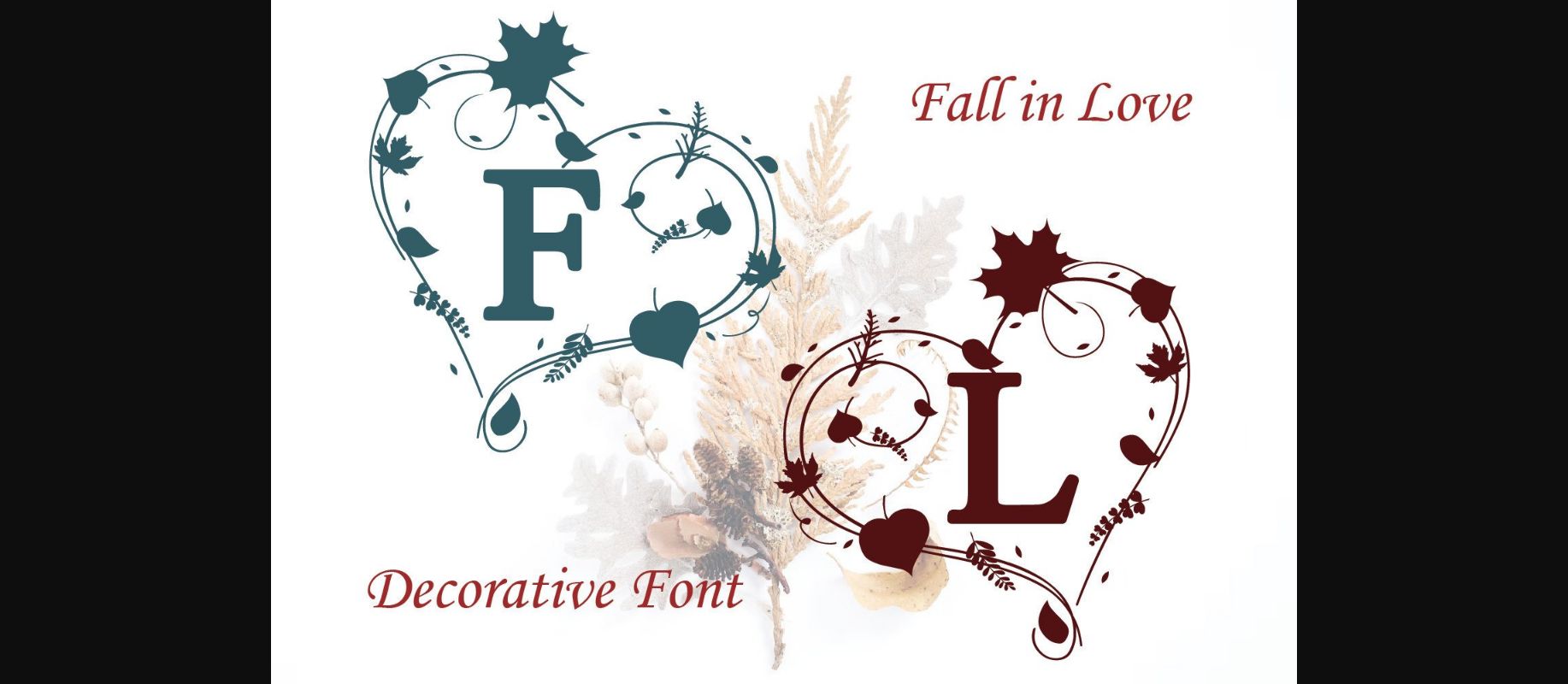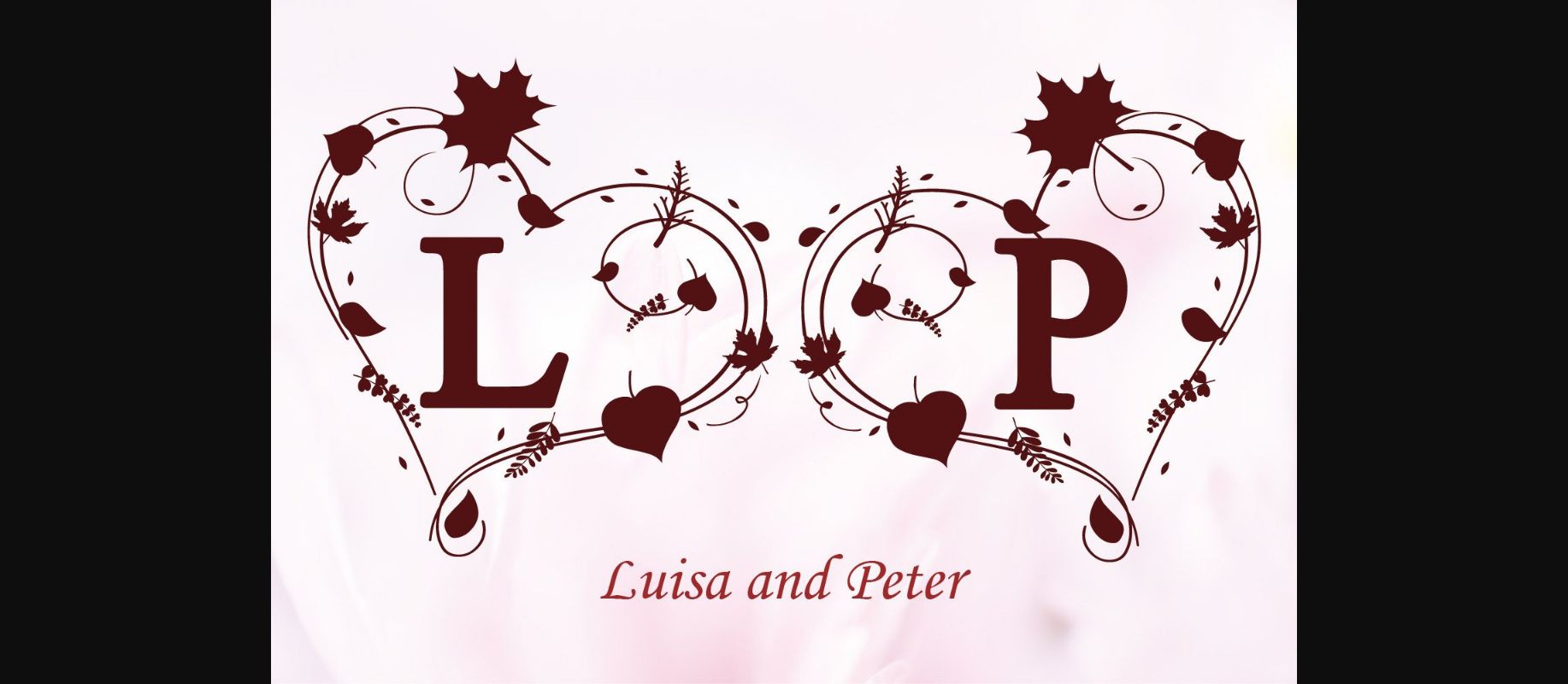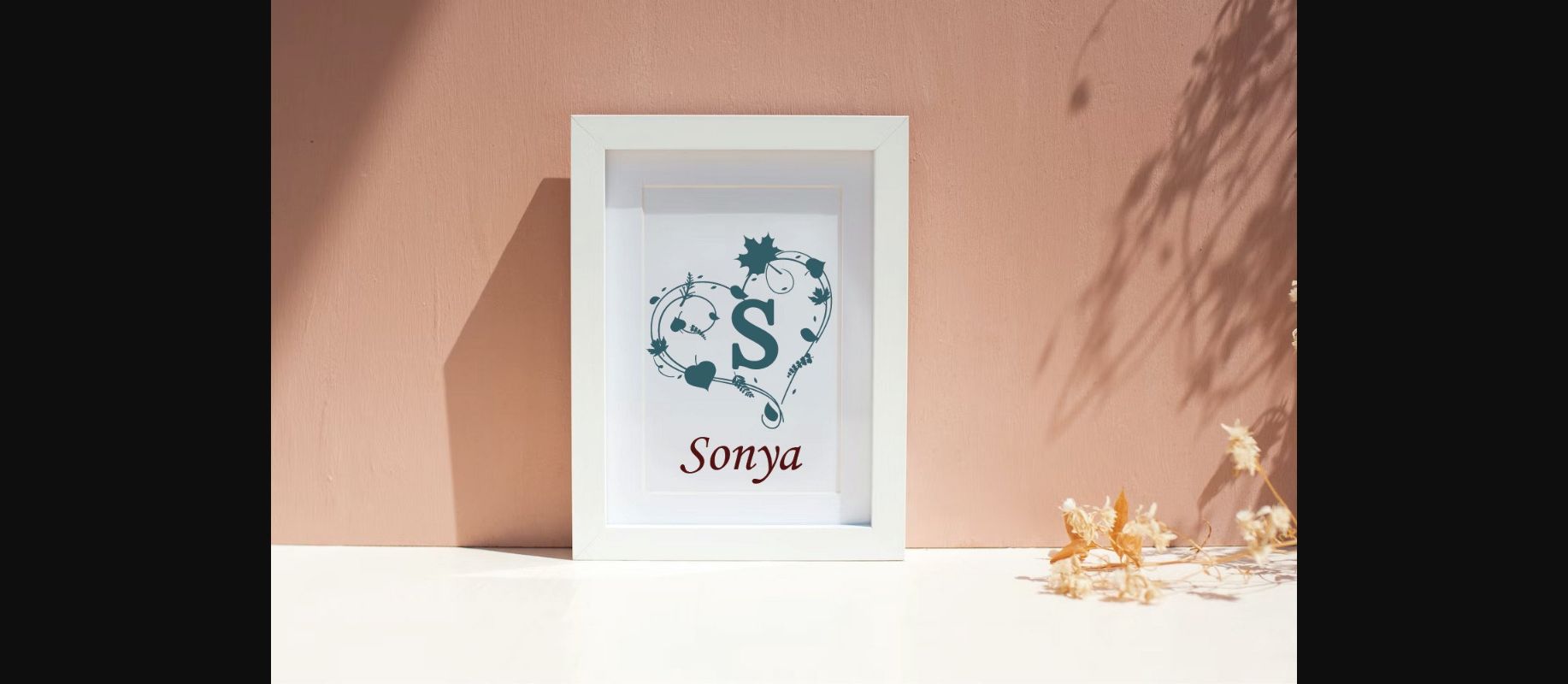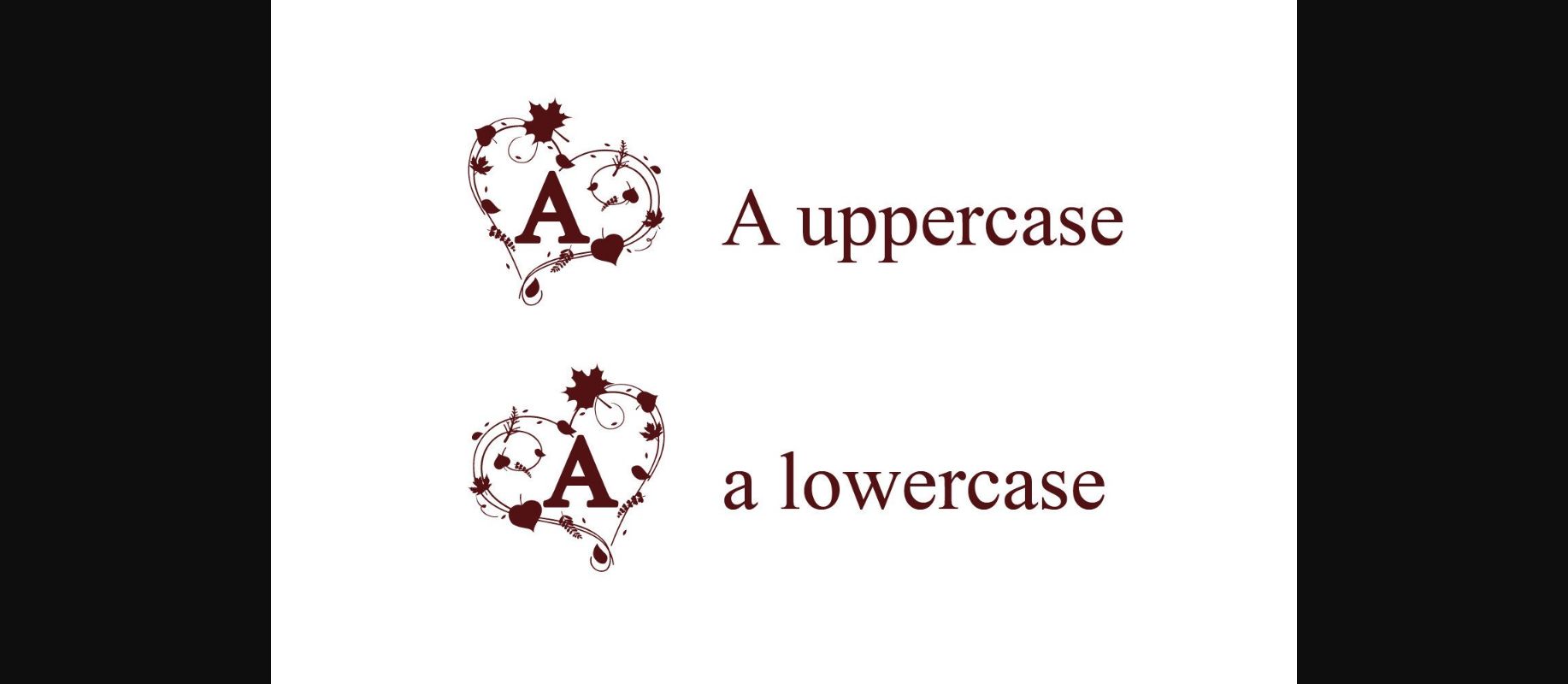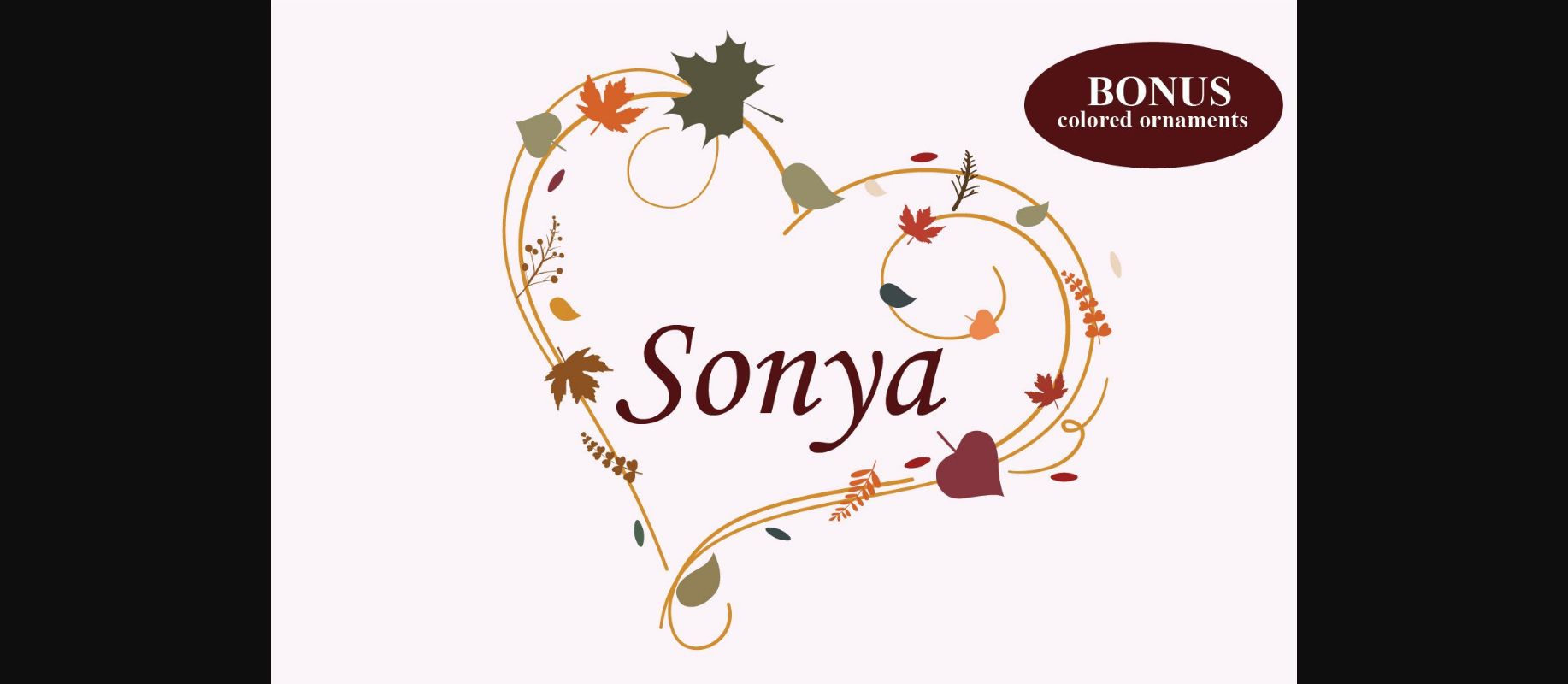
Fall in Love Font
About Fall in Love Font
Fall in Love is a beautiful and remarkably delicate and stylish decorative font. It has an amazing look for fall designs, and it will elevate any creation!